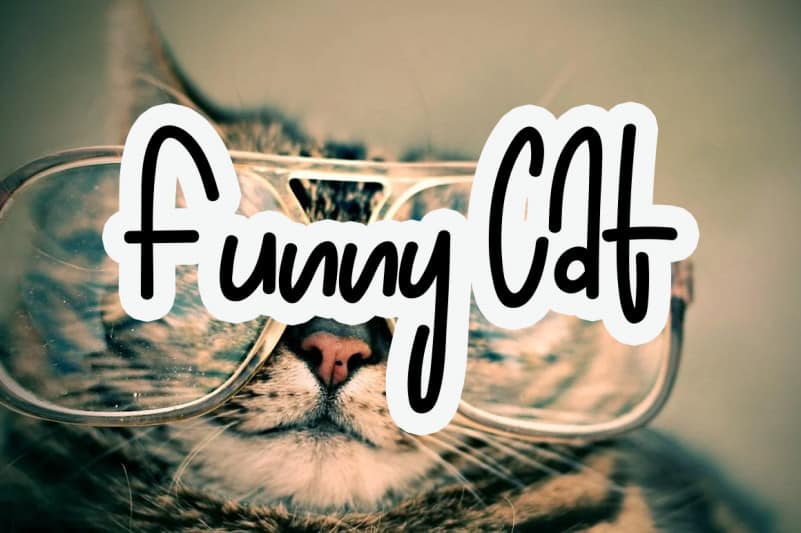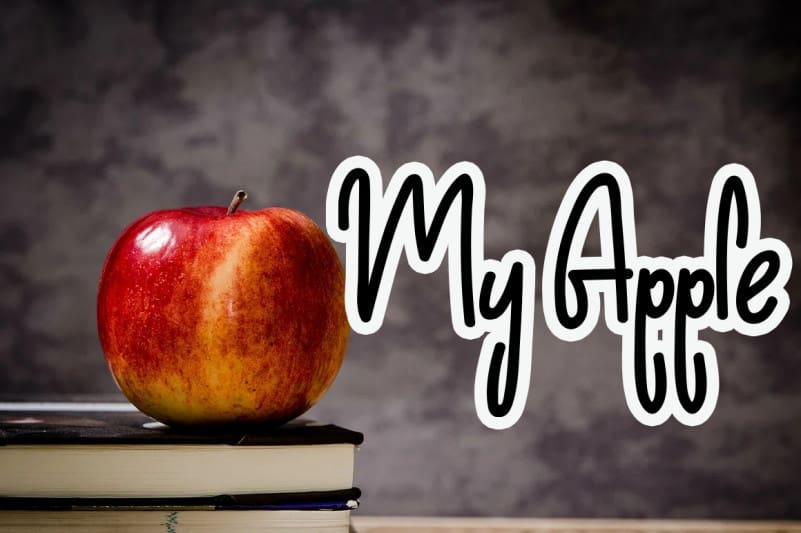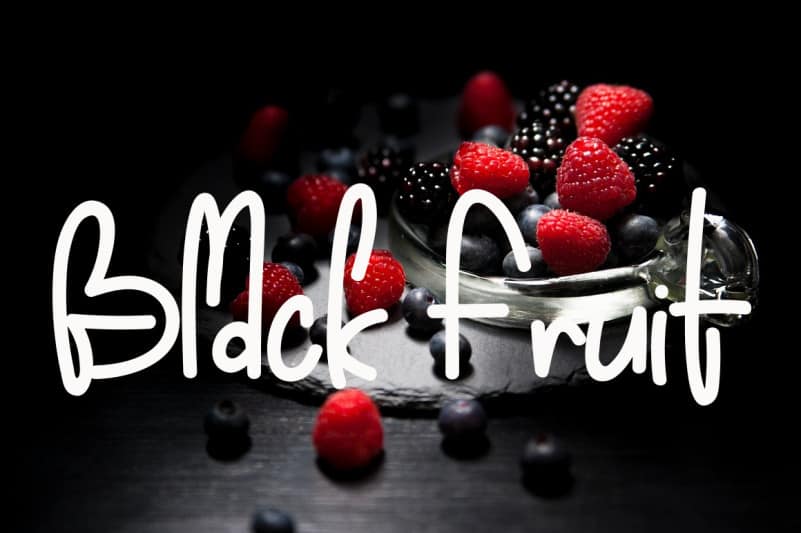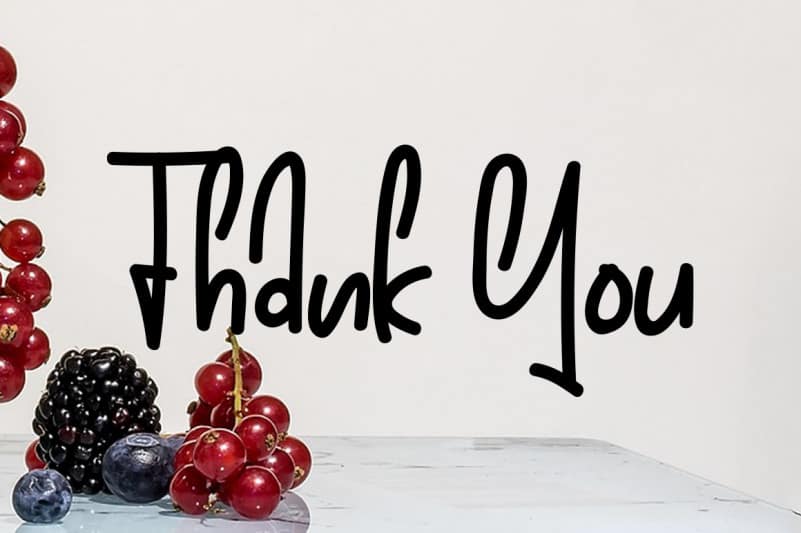
Banana Valentine Handwritten Font
Banana Valentine Handwritten Font is a unique, asymmetrical and interesting looking handwritten font. No matter the topic, this font will be an incredibly asset to your fonts’ library, as it has the potential to elevate any creation.
Banana Valentine Handwritten Font is a very talented product for you to use,
Latest letters that can be used for various products, invitations, wall hangings, weddings, and more.